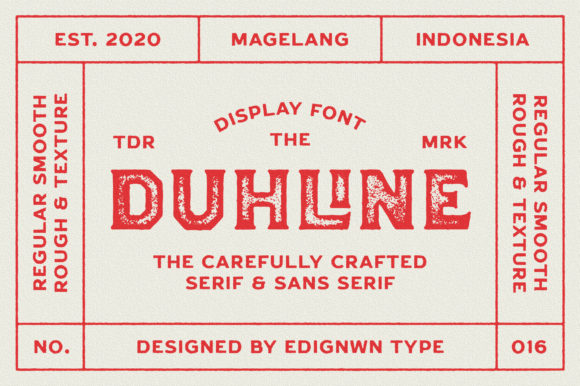
Introduce the Duhline Font: A Timeless Serif Masterpiece for Your Visual Creations
Stepping into the realm of typography, let us unveil the Duhline Font, an exquisite serif creation that will transform your digital designs into works of art. With its timeless elegance and undeniable charm, Duhline is not just a font; it's an experience that will captivate your audience and leave a lasting impression.
Craft Creations That Radiate Sophistication
The Duhline Font is a master class in serif fonts, embodying a perfect balance between classic beauty and contemporary flair. Its meticulously crafted glyphs exude an air of sophistication, lending a touch of elegance to every letterform. Whether you're designing a timeless logo, a captivating poster, or a striking label, Duhline will elevate your creations to new heights of visual appeal.
Embrace Versatility: A Multifaceted Font for Limitless Designs
The Duhline Font is more than just a one-dimensional typeface; it's a versatile chameleon that seamlessly adapts to a wide spectrum of design projects. Its inherent versatility allows you to effortlessly create logos that command attention, posters that captivate the imagination, labels that exude exclusivity, and a plethora of other custom designs. Unleash your creativity and watch as Duhline transforms your ideas into stunning visual realities.
Unleash Your Imagination: Bring Ideas to Life with Duhline
With Duhline at your disposal, the creative possibilities are boundless. Imagine crafting logos that radiate timeless sophistication, posters that transport viewers to captivating realms, and labels that elevate products to the epitome of elegance. Duhline empowers you to weave your creative vision into reality, turning abstract concepts into tangible masterpieces.